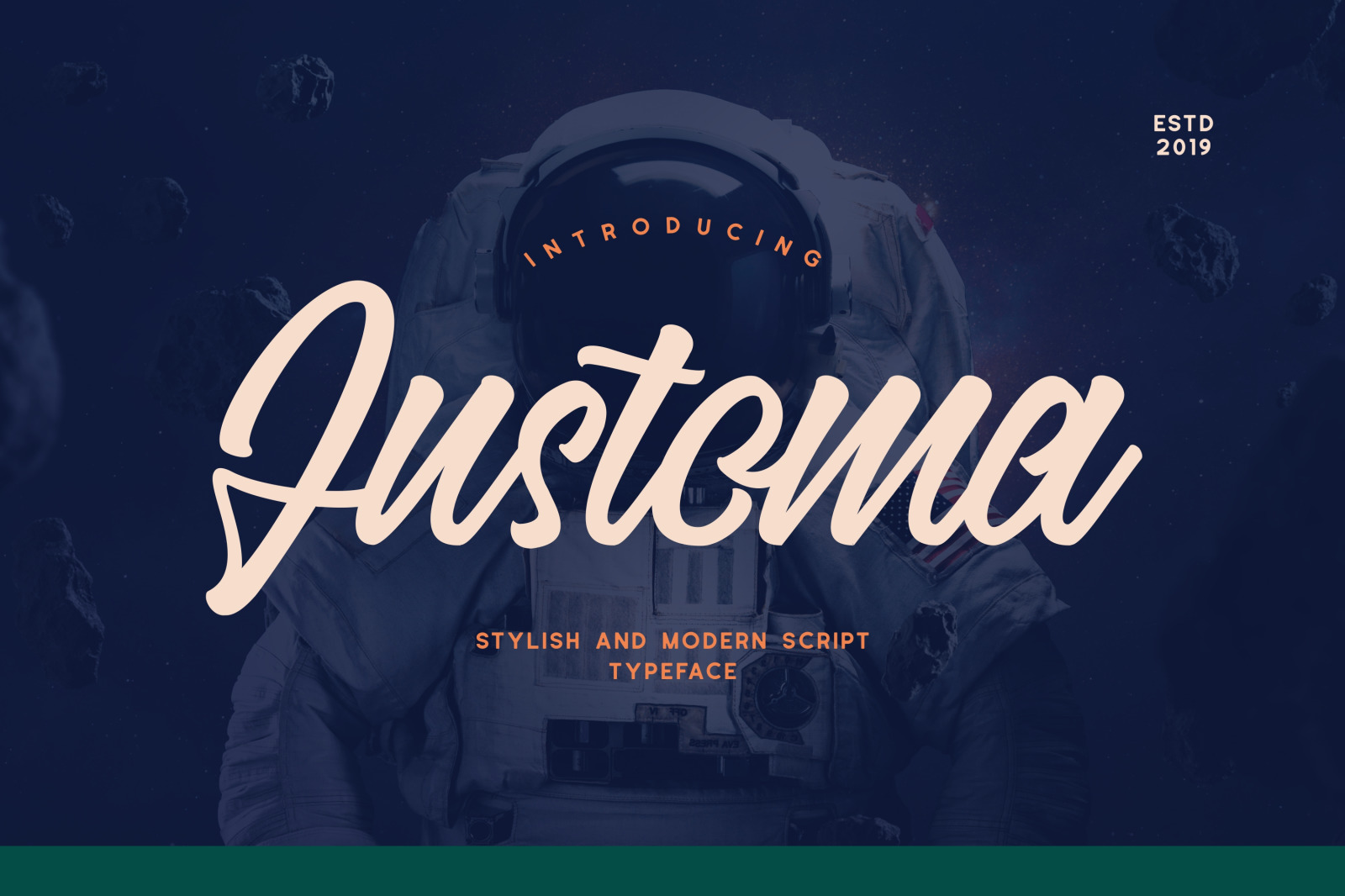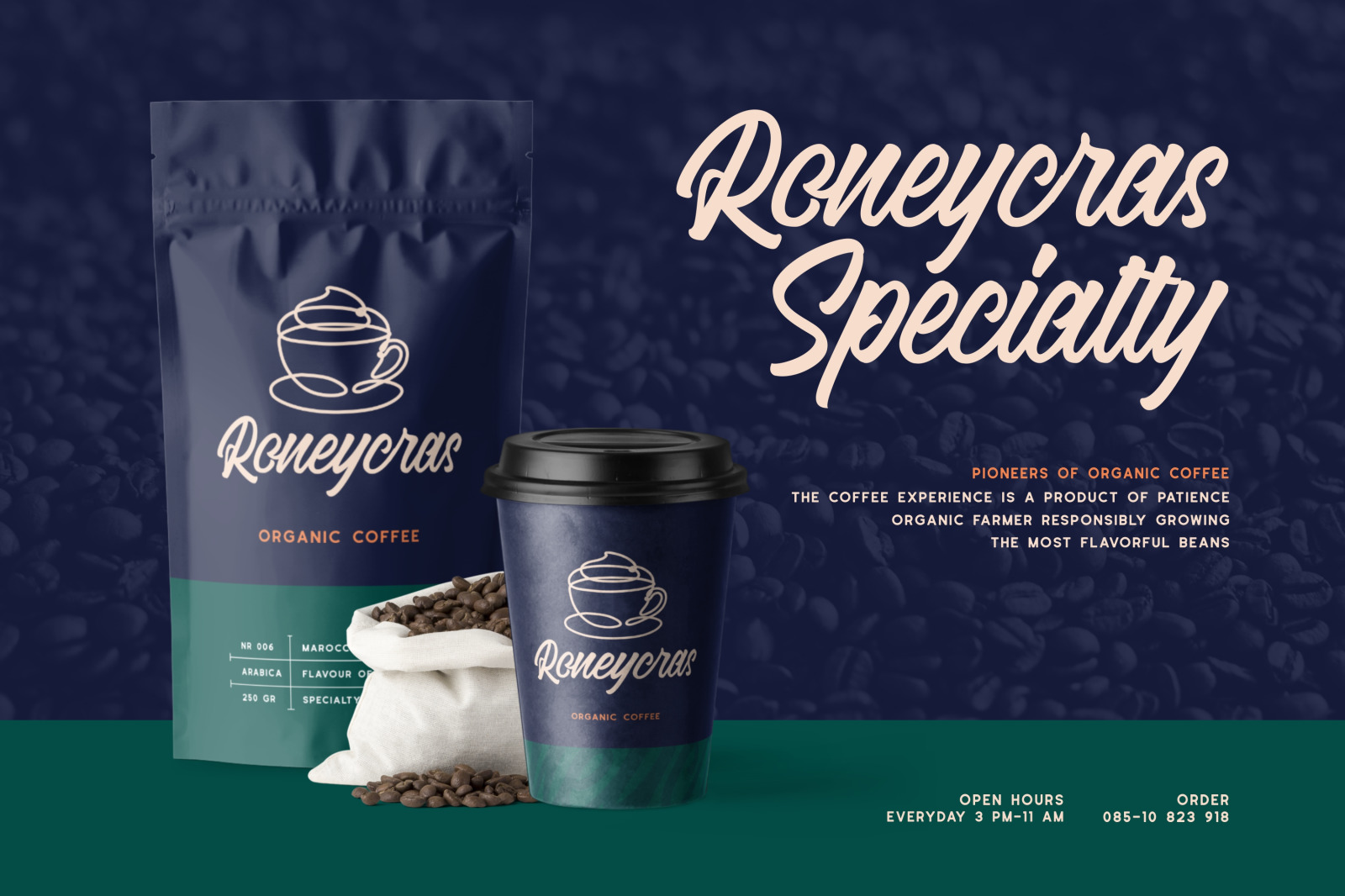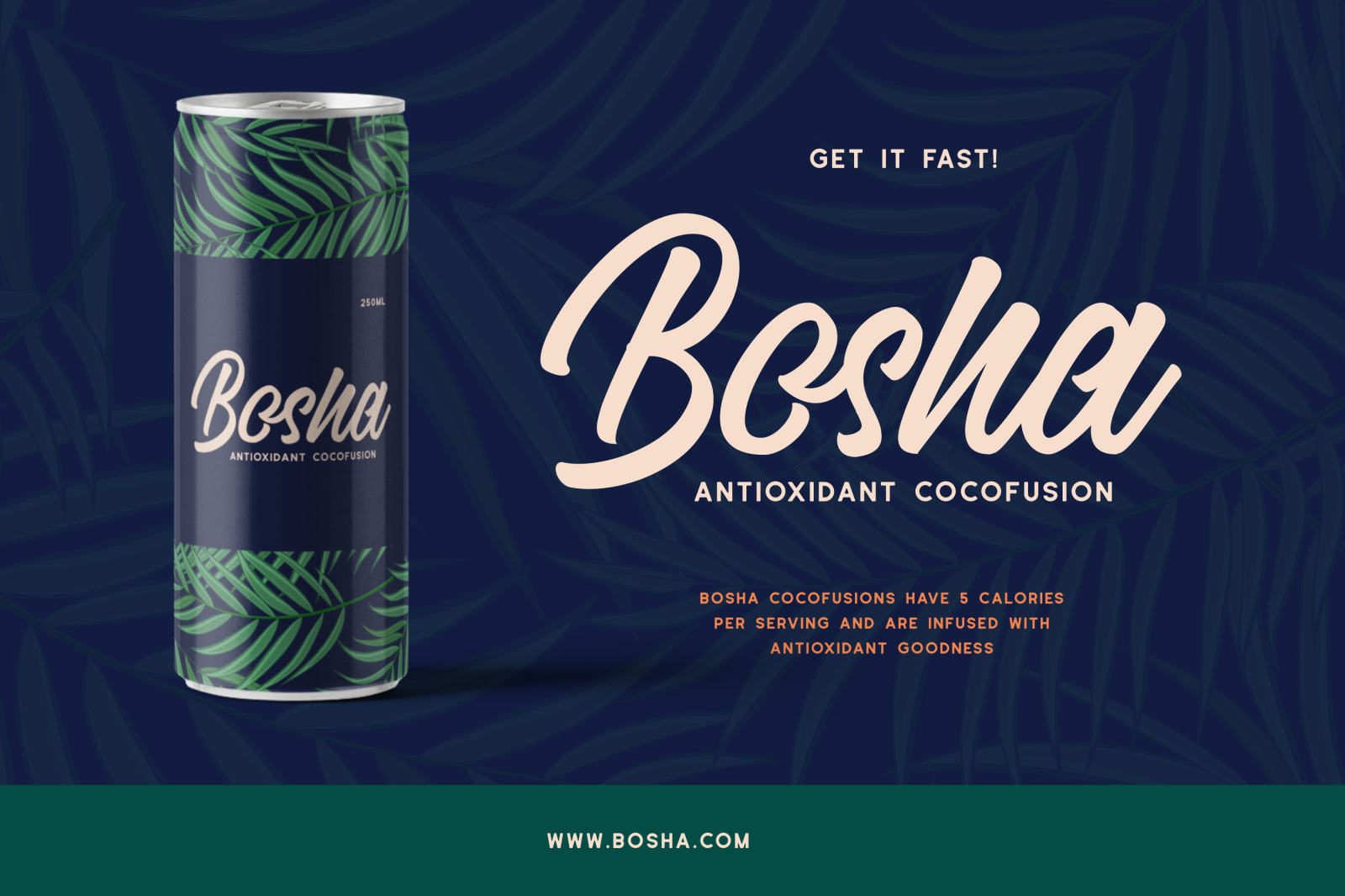
Justoma Font
Justoma is a playful and charming display font that’s easy to remember. Its lovely curves add a level of authenticity to any design project. Use it for wide range of design occasions such as logos, apparel, photography, watermarks, quotes, blog headers, posters, weddings, invitations, stationery, branding, and much more.